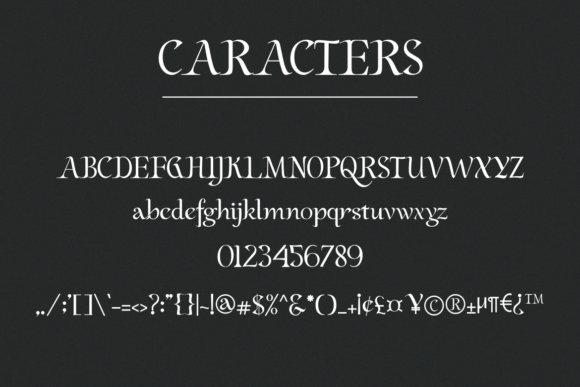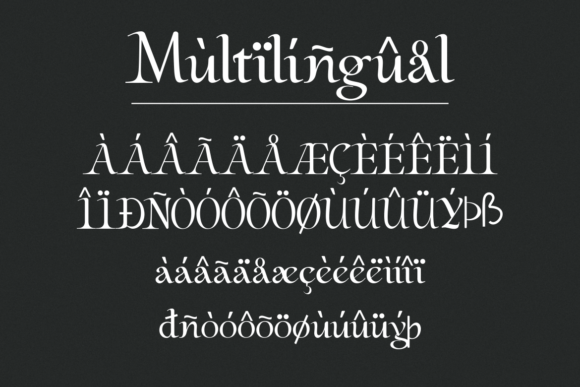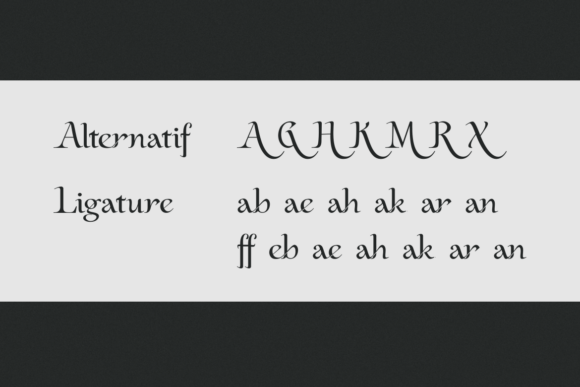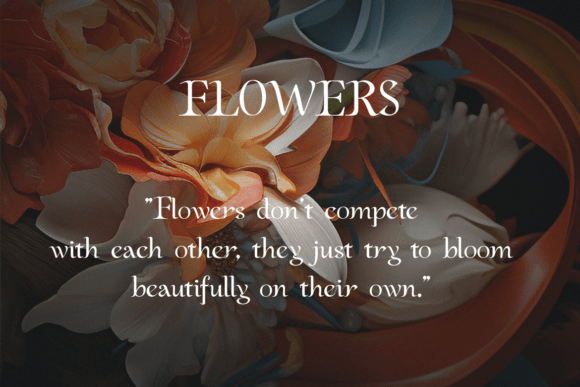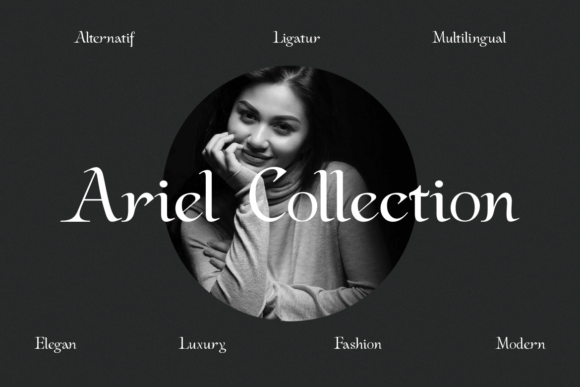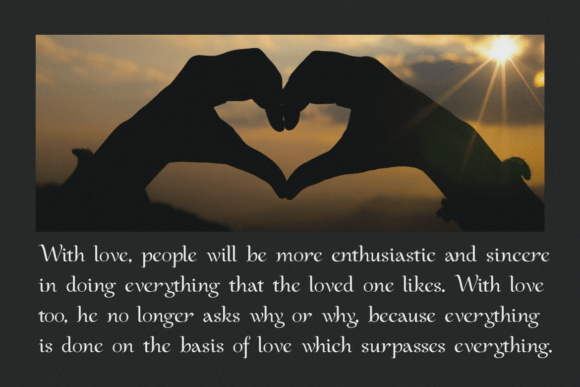
Introducing Al Maryah Font: Elegance and Sophistication in Every Stroke
Are you a designer or crafter looking for a font that exudes romance, elegance, and sophistication? Look no further than Al Maryah Font, a beautiful serif font that is sure to elevate your design projects to new heights. With its graceful and fluid lines, distinctive letterforms, and artisanal character, Al Maryah is the perfect choice for anyone seeking a delicate, timeless, and premium aesthetic.
A Font Inspired by Romance and Calligraphy
Al Maryah Font is a masterful blend of traditional calligraphy and modern typography. Its slender, light-weight letterforms are designed to evoke a sense of movement and femininity, making it an ideal choice for wedding stationery, high-end skincare branding, and lifestyle photography watermarks. The font’s elegant serif lines and soft, sweeping curves create a sense of fluidity and continuity, giving it a unique and sophisticated feel.
Distinctive Features of Al Maryah Font
So, what sets Al Maryah Font apart from other serif fonts? Here are just a few of its distinctive features:
- Elongated terminals: Al Maryah’s letterforms feature distinctive, elongated terminals that add a touch of elegance and sophistication to any design.
- Soft, sweeping curves: The font’s soft, sweeping curves create a sense of movement and fluidity, making it perfect for designs that require a sense of dynamism.
- Beautiful alternates and ligatures: Al Maryah includes a range of beautiful alternates and ligatures that give it a unique, artisanal character.
Perfect for a Range of Design Projects
Al Maryah Font is a versatile typeface that is suitable for a wide range of design projects, including:
- Wedding stationery: Al Maryah’s elegant and romantic feel makes it perfect for wedding invitations, save-the-date cards, and other wedding-related design projects.
- High-end skincare branding: The font’s sophisticated and luxurious feel makes it an ideal choice for high-end skincare brands looking to create a premium aesthetic.
- Lifestyle photography watermarks: Al Maryah’s delicate and elegant lines make it perfect for use as a watermark in lifestyle photography.
- Floral shop logos: The font’s soft, sweeping curves and elegant serif lines make it a beautiful choice for floral shop logos and branding.
Why Choose Al Maryah Font?
So, why should you choose Al Maryah Font for your design projects? Here are just a few reasons:
- Unique and sophisticated feel: Al Maryah’s distinctive letterforms and artisanal character give it a unique and sophisticated feel that will set your designs apart.
- Elegant and romantic: The font’s elegant and romantic feel makes it perfect for designs that require a sense of luxury and sophistication.
- Versatile and adaptable: Al Maryah is a versatile typeface that can be used in a wide range of design projects, from wedding stationery to high-end skincare branding.
| Font Name | Al Maryah Font |
| Author | Kenrichi |
In conclusion, Al Maryah Font is a beautiful serif font that is sure to elevate your design projects to new heights. With its elegant and romantic feel, distinctive letterforms, and artisanal character, it is the perfect choice for anyone seeking a delicate, timeless, and premium aesthetic. Whether you’re a designer or crafter, Al Maryah Font is a must-have addition to your typography collection.